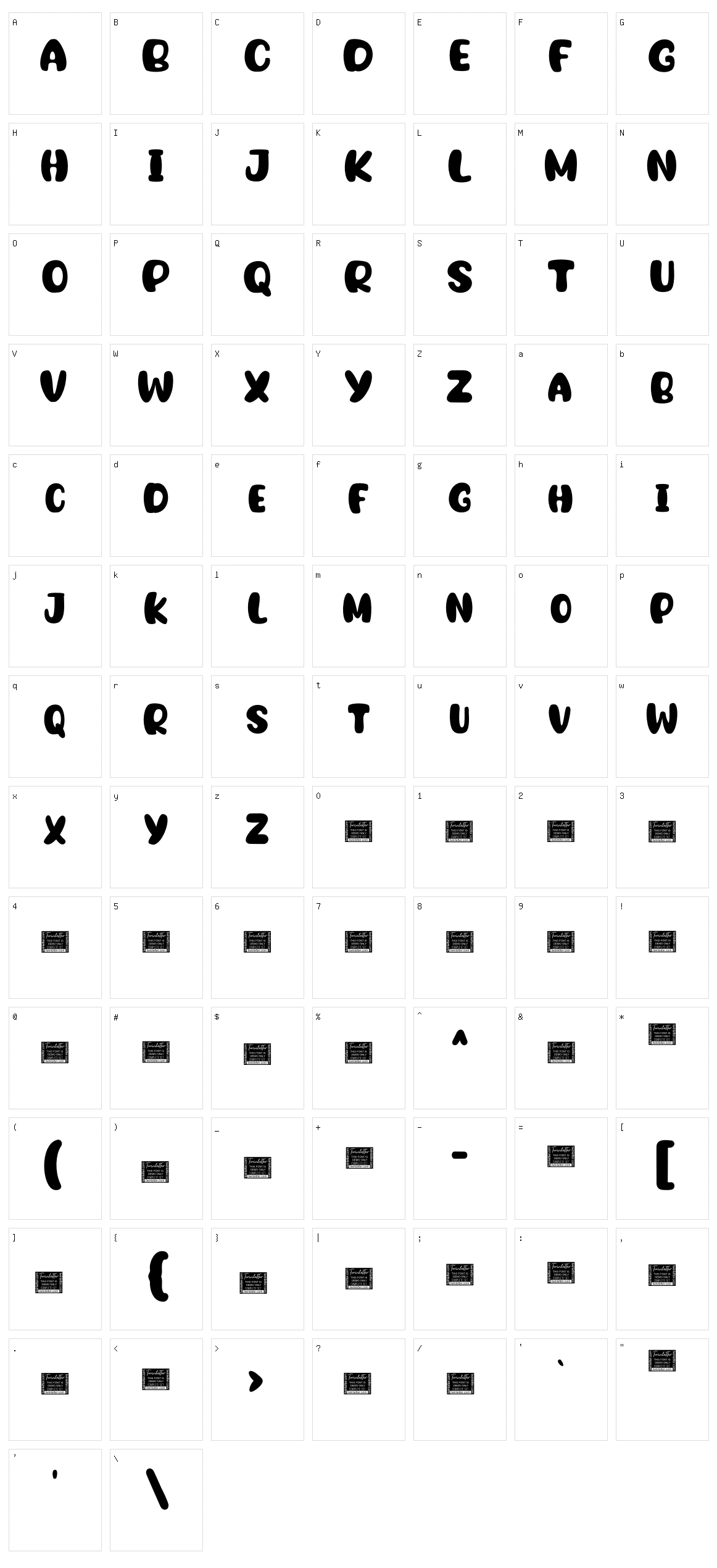
The free font Laout Beauty is carefully designed by twinletter, showcasing a thoughtful balance of creativity and usability and falls under the Cartoon font style. When you download the ZIP file, it contains only 86.96 KB of font files, making it lightweight and quick to download. Please review the license details below to understand permitted usage and distribution rights. If license information is not available, we recommend using this font for personal projects only or contacting the author directly for commercial usage permissions.